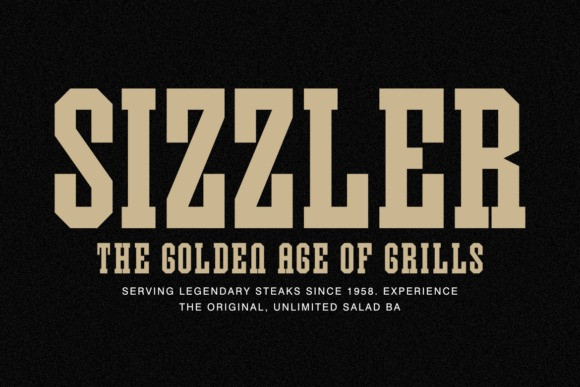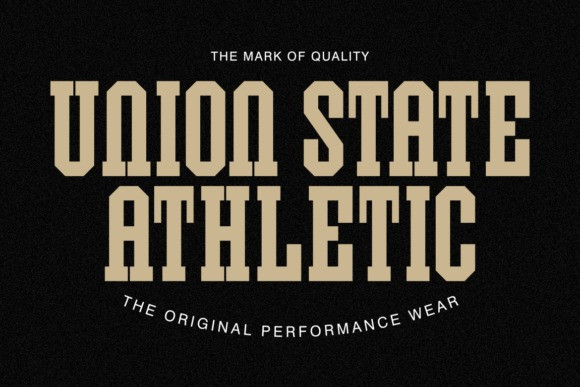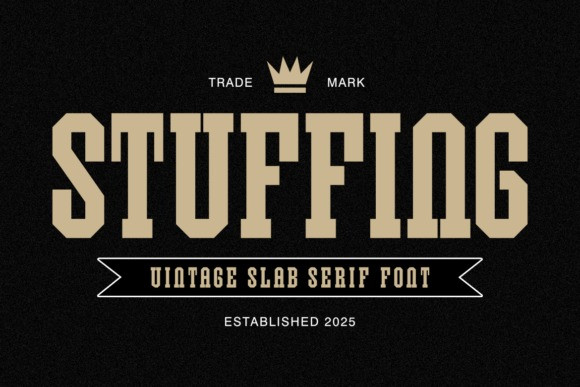
Stuffing Font is a robust Vintage Slab Serif Font that delivers a bold, authoritative presence with a distinctive retro flair. This eye-catching display font features thick, powerful serifs and a weighty structure reminiscent of classic college sports team lettering and traditional American signage. The name Stuffing directly ties this font to high-demand Thanksgiving and holiday T-shirt designs in the Print-on-Demand market, perfect for creating fun, family-themed apparel. Beyond holiday niche, Stuffing is an exceptional choice for premium branding, craft beer and liquor labels, sports merchandise, vintage posters, and any project that requires an old-school, impactful headline. Its crowned trade-mark style gives it a premium, established look, making it a versatile and indispensable tool for designers seeking a typeface with character and genuine heritage appeal.